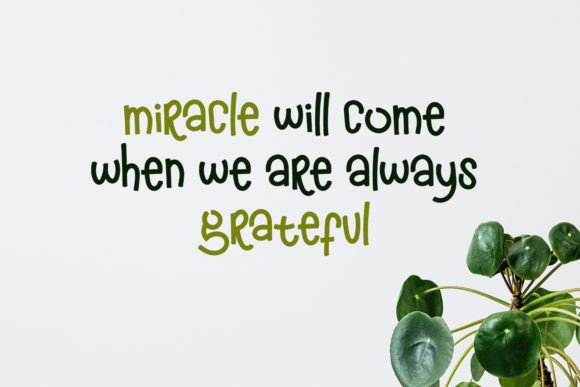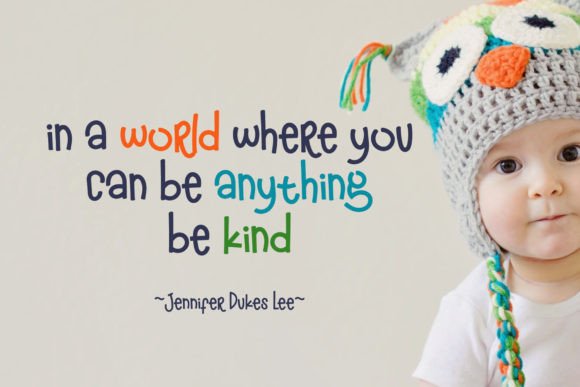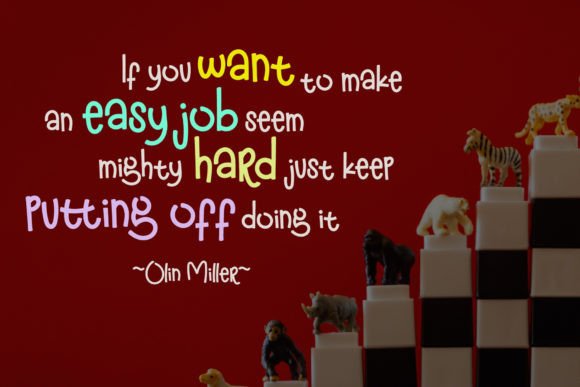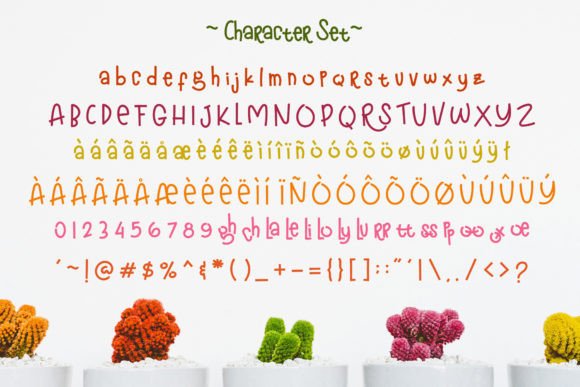
Introducing Big Bang Font: The Cute and Playful Handwritten Display Font
Are you looking for a font that can add a touch of cuteness and playfulness to your designs? Look no further than the Big Bang Font! This amazing handwritten display font is perfect for cartoon-related designs, children’s games, and any creation that requires a lovely touch. In this article, we’ll dive into the features and benefits of Big Bang Font, and explore how it can elevate your designs to the next level.
What is Big Bang Font?
Big Bang Font is a unique and charming handwritten display font that is sure to capture the attention of your audience. Its cute and playful design makes it perfect for a wide range of projects, from children’s books and games to cartoon-related designs and more. The font features a distinctive, hand-drawn style that gives it a personal and friendly feel.
Key Features of Big Bang Font
• Cute and Playful Design: Big Bang Font features a cute and playful design that is sure to delight your audience. Its hand-drawn style gives it a personal and friendly feel that is perfect for a wide range of projects.
• Handwritten Display Font: Big Bang Font is a handwritten display font that is designed to make a statement. Its bold and expressive letters are perfect for headlines, titles, and other display text.
• Cartoon-Related Designs: Big Bang Font is perfect for cartoon-related designs, including children’s books, games, and more. Its playful design makes it a great choice for any project that requires a fun and youthful touch.
• Children’s Games and More: Big Bang Font is also great for children’s games, educational materials, and other projects that require a fun and engaging design.
Benefits of Using Big Bang Font
So why should you choose Big Bang Font for your next project? Here are just a few benefits of using this amazing font:
• Adds a Personal Touch: Big Bang Font adds a personal touch to your designs, making them more relatable and engaging.
• Perfect for Kids and Adults Alike: Big Bang Font is perfect for kids and adults alike, making it a great choice for projects that require a fun and playful design.
• Easy to Read: Despite its playful design, Big Bang Font is easy to read, making it perfect for body text and other applications where readability is important.
• Versatile: Big Bang Font is versatile and can be used for a wide range of projects, from children’s books and games to posters and more.
• Use it for Headlines and Titles: Big Bang Font is perfect for headlines and titles, where its bold and expressive letters can make a big impact.
Font Name Big Bang Font
Author rulihoki studio
In conclusion, Big Bang Font is a cute and playful handwritten display font that is perfect for a wide range of projects. Its unique design and versatility make it a great choice for designers and crafters looking to add a personal touch to their designs. Whether you’re working on a children’s book, game, or other project, Big Bang Font is sure to delight your audience and elevate your design to the next level.